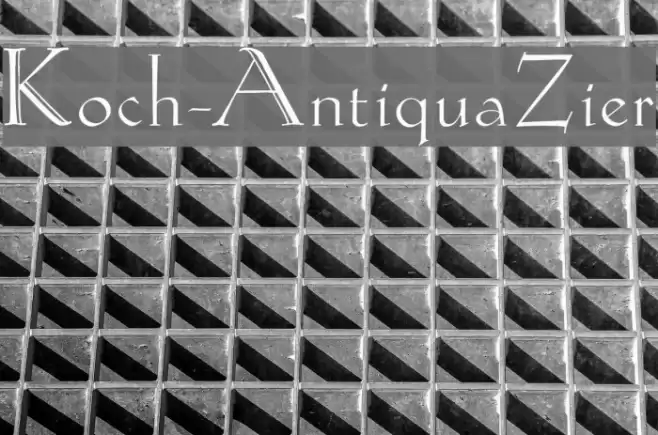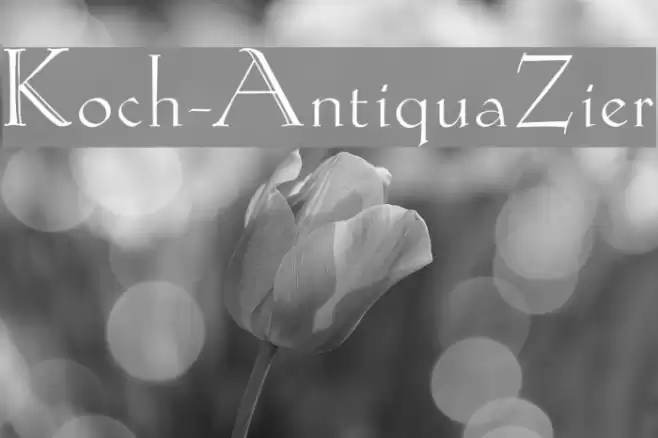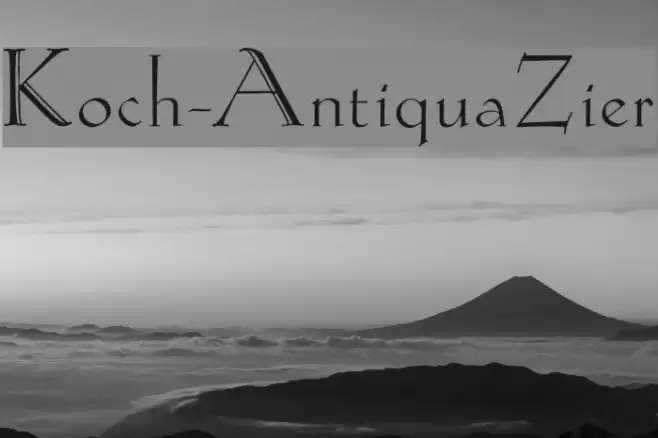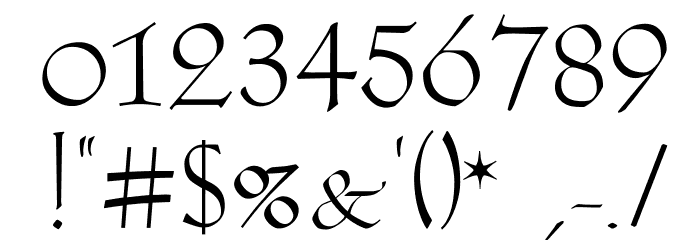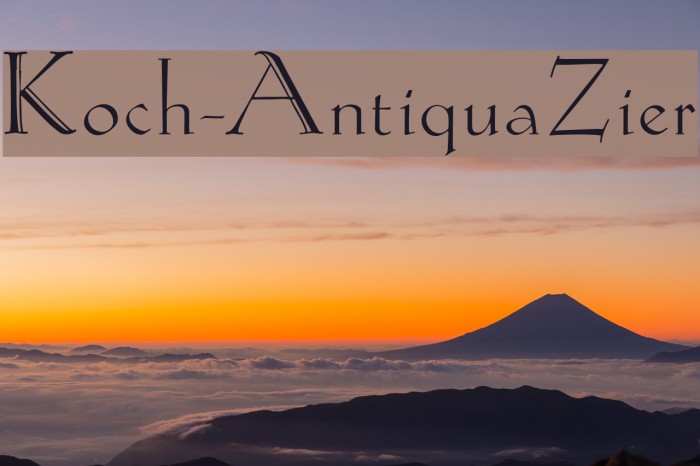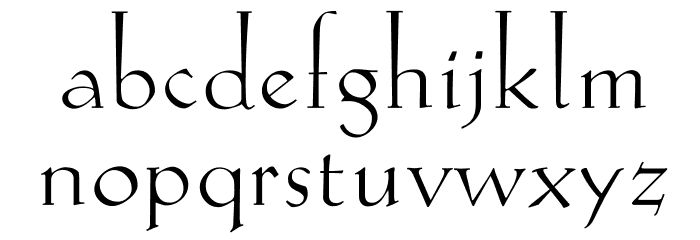
Koch-AntiquaZier Font
Koch-AntiquaZier Description
This font exhibits a classic and elegant style with a touch of decorative flair. The uppercase letters are characterized by their tall, slender forms with subtle serifs and unique embellishments, giving them a sophisticated appearance. The lowercase letters maintain a consistent style, with smooth curves and a slightly more relaxed feel. The numerals are distinct and easy to read, featuring a balanced design that complements the overall aesthetic. Special characters are thoughtfully crafted, adding to the font's versatility. The font's design is reminiscent of traditional serif fonts, yet it incorporates modern elements that make it suitable for a variety of applications.
A classic serif font with elegant, decorative elements and modern touches from Uncategorized fonts.
- Proposed Projects: Ideal for use in formal invitations, luxury branding, editorial design, and high-end product packaging.
- Overall Style: Classic
- Use Case: Headlines, Logos, Editorial design